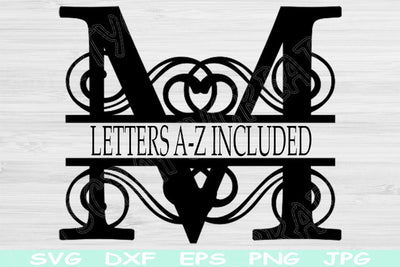
Monogram Font Svg, Split Letter Svg Dxf, Eps, Png For Cricut, Glowforge, Silhouette
This monogram font svg cut file that is 26 upper case split letter svgs is the perfect cricut cut files to customize gifts. It would look great on a wood sign, metal pail, or plate. This purchase will allow you to use vinyl, paper, or your other favorite medium.
This is the entire alphabet.
In pack are included 26 uppercase split letter svgs: